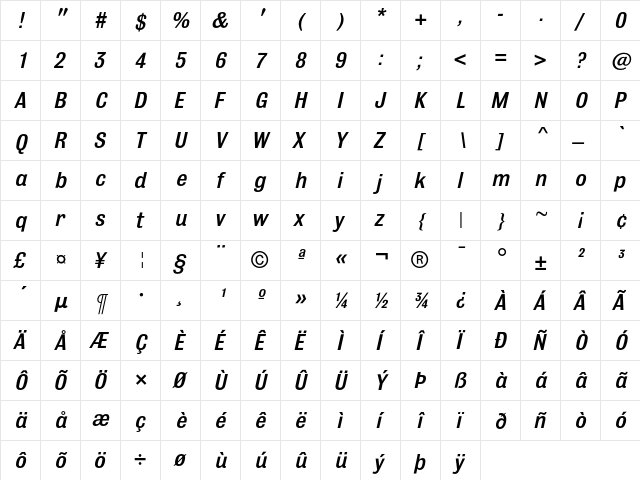
Bulldog MediumItalic Font Preview
Bulldog MediumItalic
Bulldog MediumItalic Font Details
| Style | MediumItalic |
Design Context for Bulldog Typeface
Bulldog is a composed and adaptable typeface that performs quietly and consistently across a wide range of design contexts. Its italic angle brings a sense of urgency and motion to the letterforms.
Pro Tip: Try Bulldog for annotation and caption copy alongside an upright companion — the contrast in angle creates a dynamic but ordered typographic system.